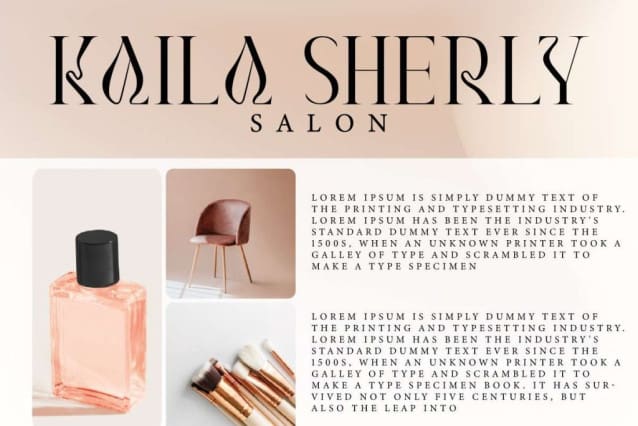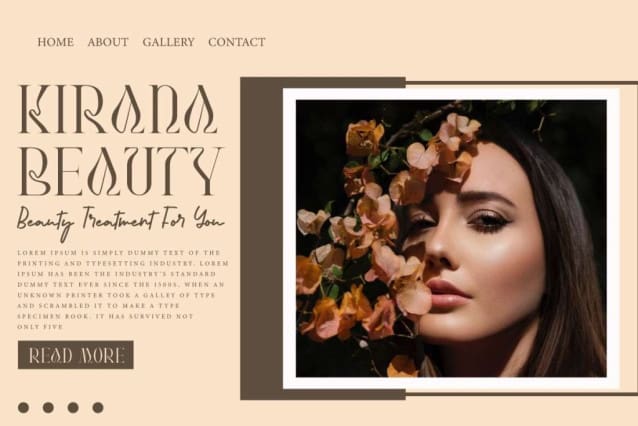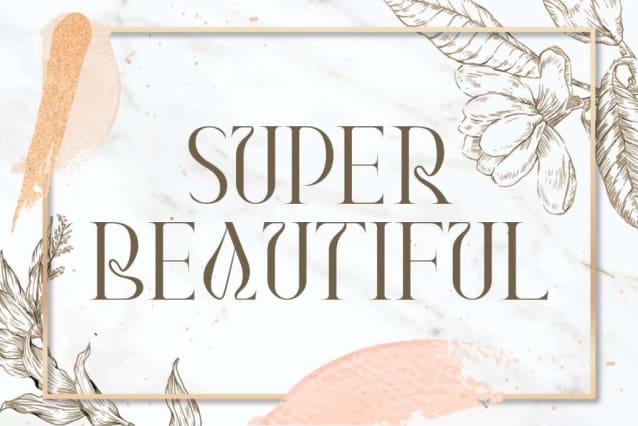
Super Beautiful Font
Super Beautiful Font is a uniquely stunning aesthetic display font with exclusive style. The appearance can make your business more beautiful, such as accessories, architect, boutique, café, cosmetic, event organizer, fashion designer, film, fragrance maker, furniture, interior design, jewelry, photography, printing, publishing, real estate, restaurant, retail, skincare, social media content, spa salon, writer, etc.
Super Beautiful Font includes full set of Uppercase and Lowercase Basic Characters, Number, Punctuation, and Symbol. It has a whimsical appeal but helps your design feel charming, such as apps, billboard, blogs, brand logo, brochure, cover, flyer, header, invitation, label, packaging design, poster, quote, screen print, signage, stationery, sticker, title, watermark, website, and more.